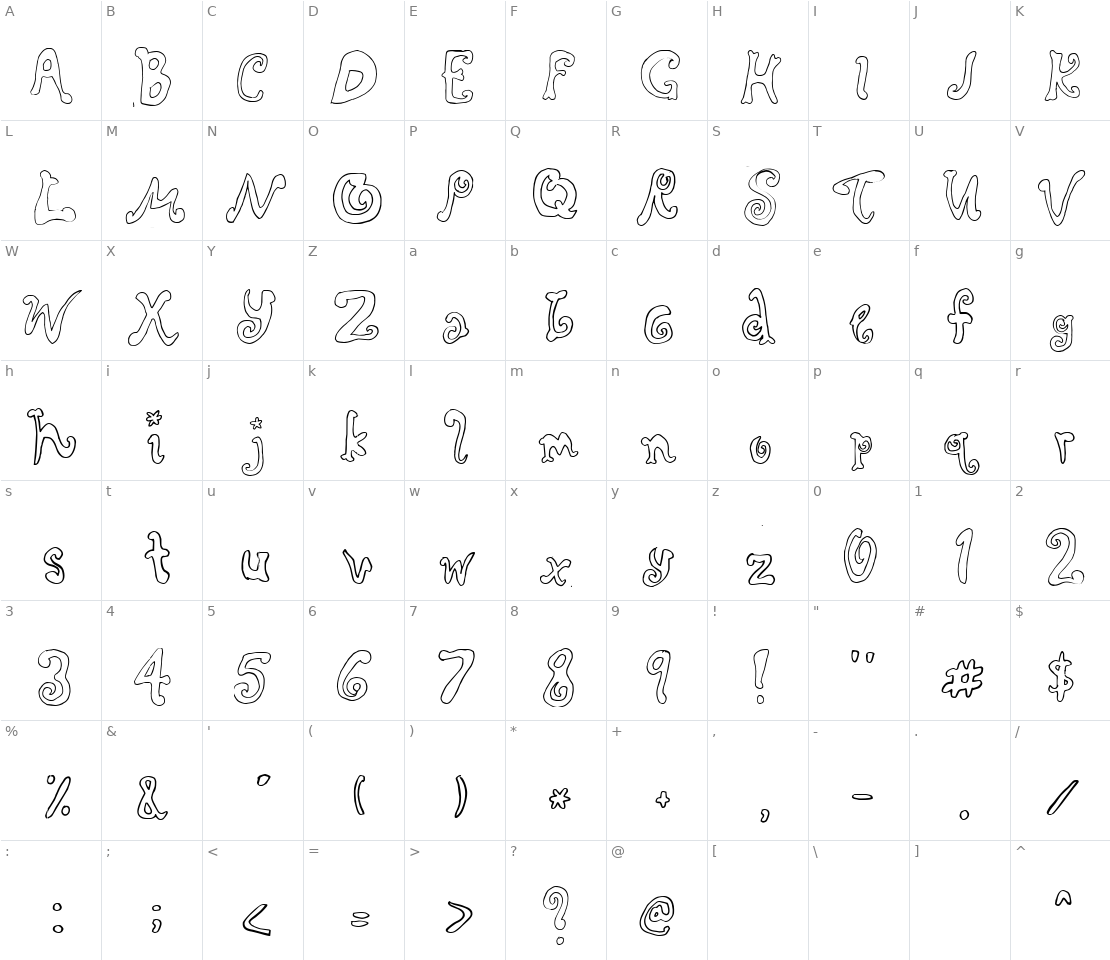
Rascal
Rascal is a playful, outline-only display face from Marianfudge with swirling, exaggerated curls that give every letter a mischievous energy. The open letterforms and decorative flourishes keep things light and whimsical, making it a natural pick for children's titles, party invitations, and headlines where fun is the whole point.